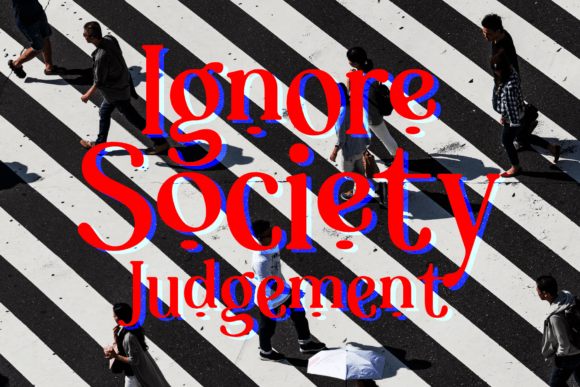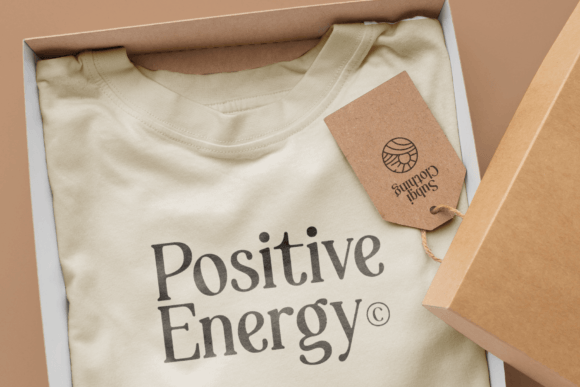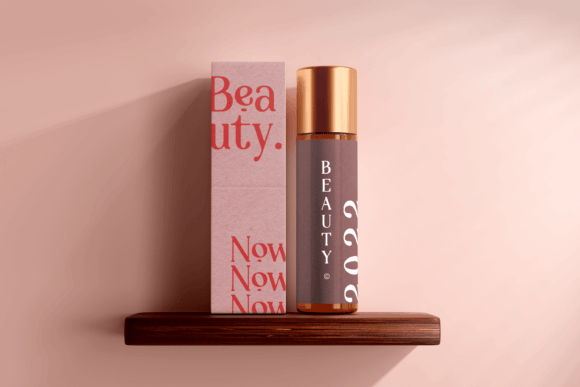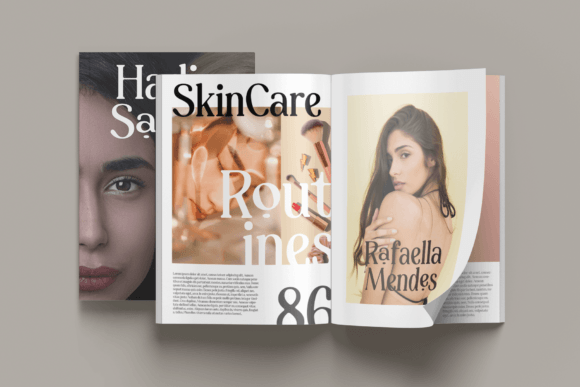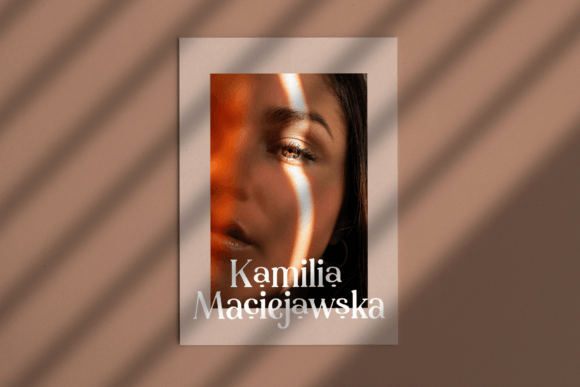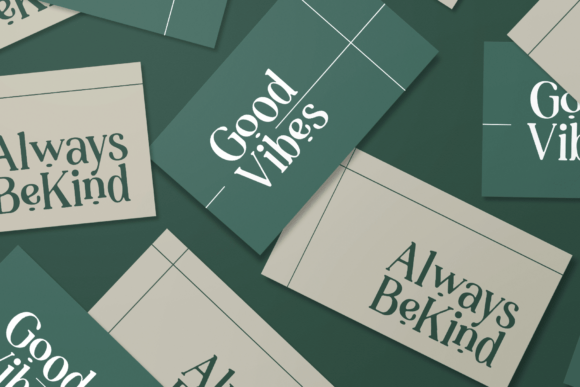
Introduction to Galisteo Font
You know that moment when you’re working on a creative project and you need the perfect font to elevate your design? The one that transports you back in time, but still feels fresh and modern? For designers like you, finding that special font can be a game-changer. That’s why we’re excited to introduce you to the Galisteo Font, a high-quality serif typeface that’s sure to become a valuable addition to your design resource library.
With its subtle retro-aesthetic charm, the Galisteo Font is perfect for display design projects that need to stand out from the crowd. Whether you’re working on a branding project, a website, or a social media campaign, this font is sure to add a touch of sophistication and elegance to your design. And the best part? You can use it with a transparent background, giving you complete creative freedom.
Key Features of Galisteo Font
- High-quality design resource suitable for creative projects, offering a unique and elegant style.
- Designed with a clean and modern aesthetic, making it perfect for a wide range of creative projects, from logos to typography.
Honest Review: Galisteo Font
I recently had the opportunity to work with the Galisteo Font, and I must say it’s been a game-changer for my design projects. This font is a high-quality design resource that’s perfect for any creative project.
One of the standout features of the Galisteo Font is its versatility. It’s available in a range of styles and weights, making it easy to find the perfect fit for your design. ✨ The font is also incredibly easy to use, with a transparent background that makes it simple to customize and edit.
- Works well for a variety of design projects, including logos, graphics, and typography
- Available in a range of styles and weights, making it easy to find the perfect fit
- Transparent background makes it easy to customize and edit
Overall, I’m extremely impressed with the Galisteo Font. It’s a fantastic design resource that’s perfect for any creative project. Whether you’re a seasoned designer or just starting out, I highly recommend giving it a try.
The Galisteo Font is a high-quality design resource perfect for creative projects that require a unique and stylish touch. This versatile font is available for free download, making it an excellent addition to any designer’s toolkit.
Tips for Getting the Most Out of Galisteo Font
Experiment with different font sizes, colors, and styles to create a unique and eye-catching design. Use the font in combination with other design elements, such as graphics and images, to add depth and interest to your project.
Common Use Cases for Galisteo Font
The Galisteo Font is perfect for use in a variety of creative projects, including logo design, branding, and advertising. It’s also great for use in digital media, such as websites and social media graphics.